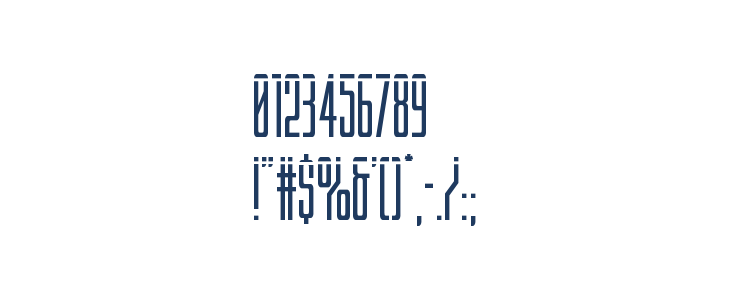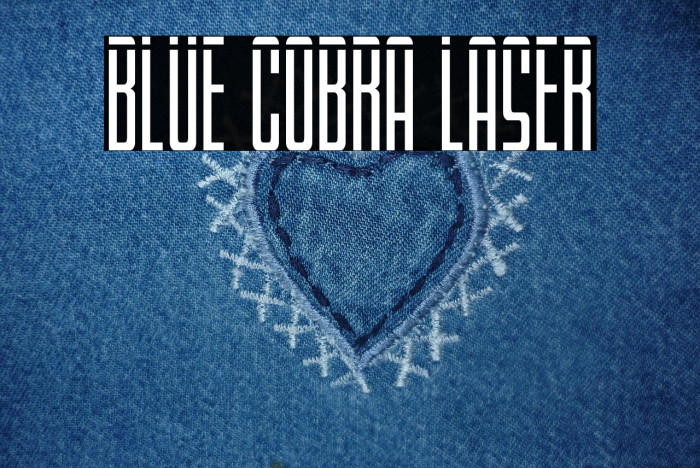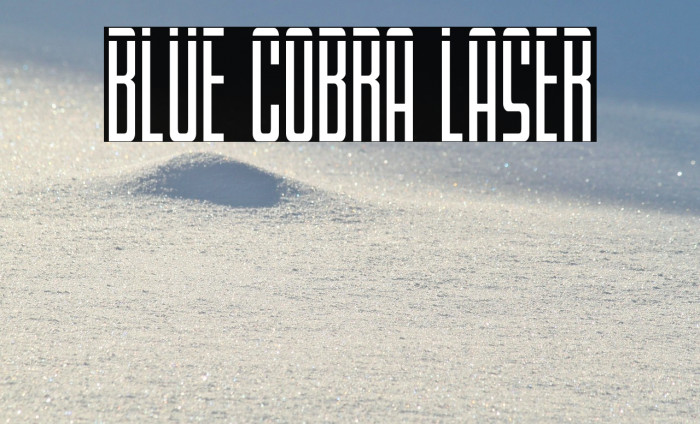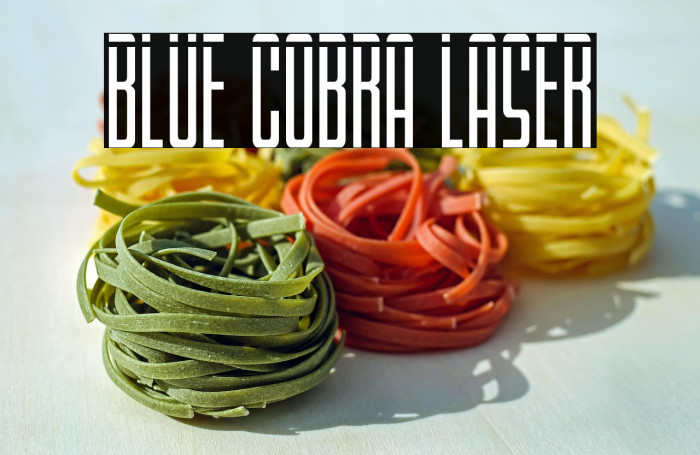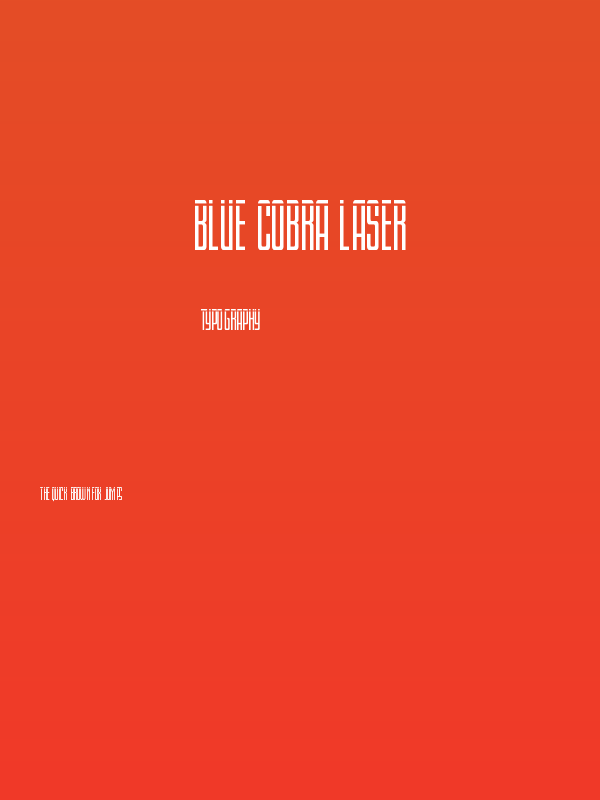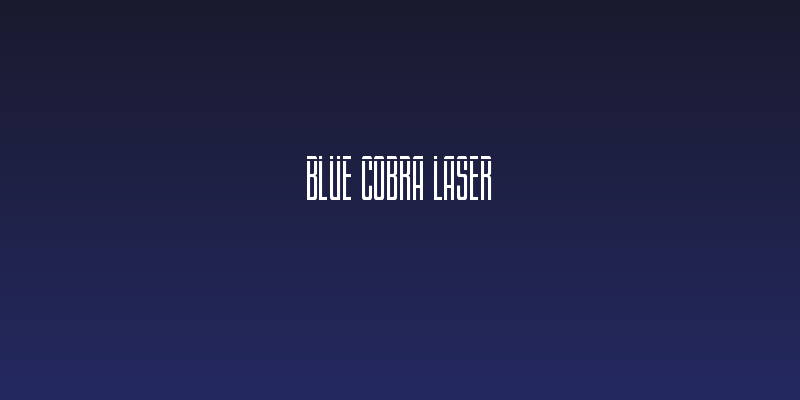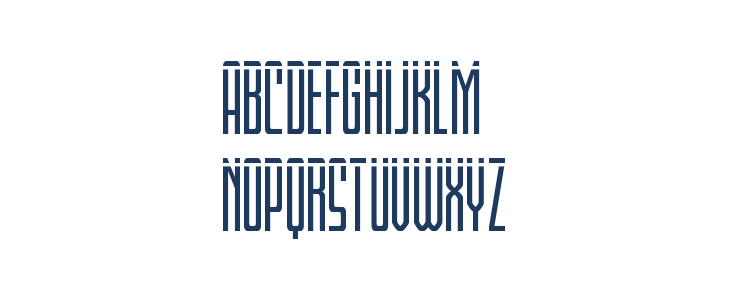
Blue Cobra Laser Font
Blue Cobra Laser Description
This font features a futuristic and geometric design with elongated, narrow characters. The uppercase and lowercase letters maintain a consistent height, creating a uniform appearance. The strokes are straight and precise, with sharp angles and minimal curves, giving it a sleek and modern look. The numbers and special characters follow the same design principles, ensuring cohesion across all elements. The font's unique style makes it stand out, suitable for projects that require a bold and contemporary aesthetic.
| Proposed Projects | Ideal for sci-fi themed designs, technology branding, modern posters, and digital interfaces. |